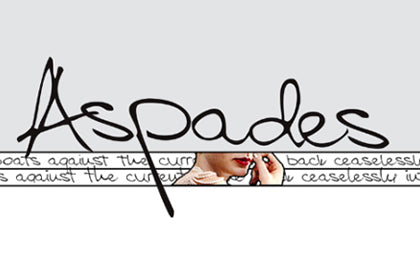
Free Aspades Handwriting Font
Featuring the breathtaking free aspades handwriting font. Font Space has created this amazing and beautiful free typeface. You can create a professional designs with this fancy font.